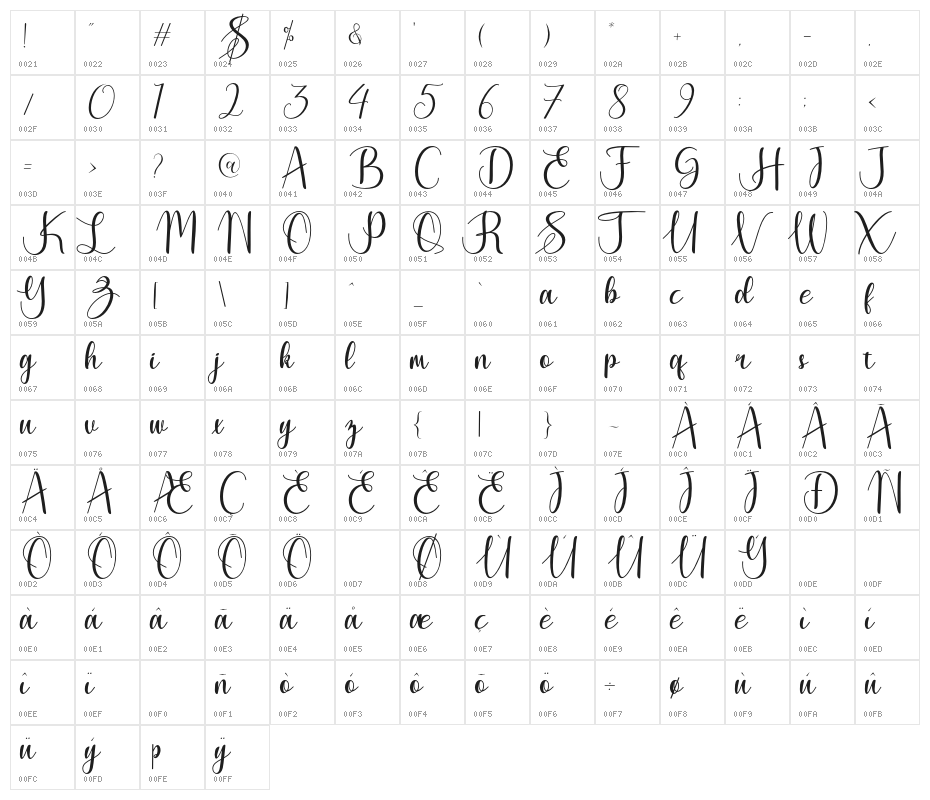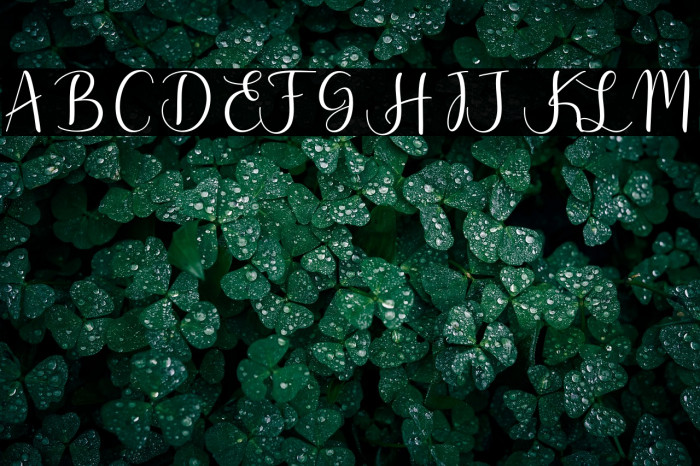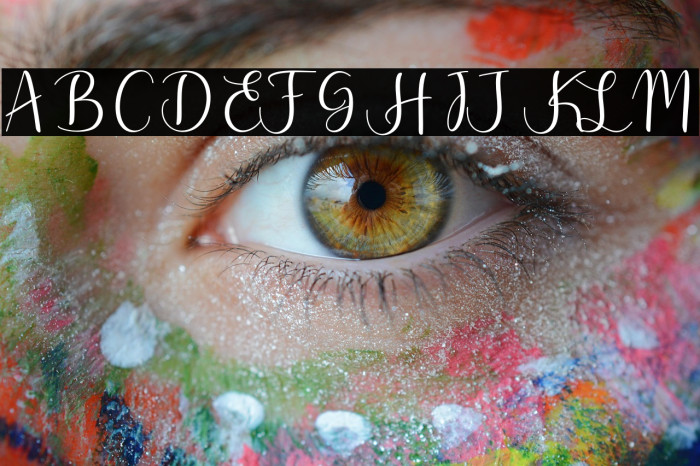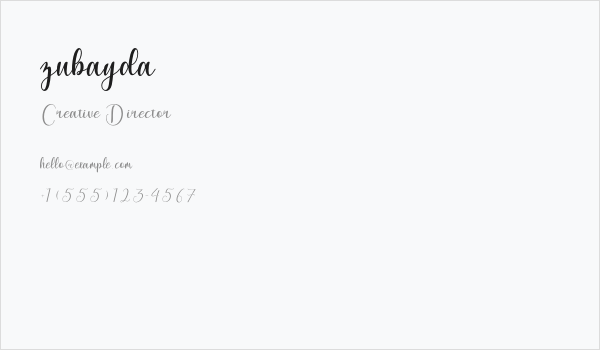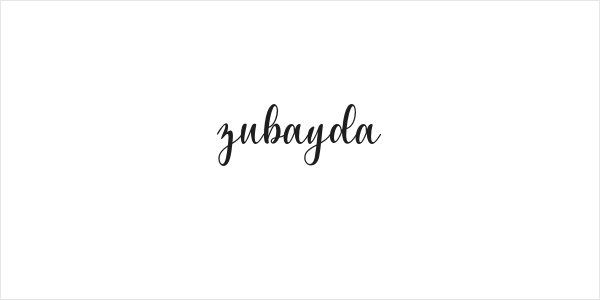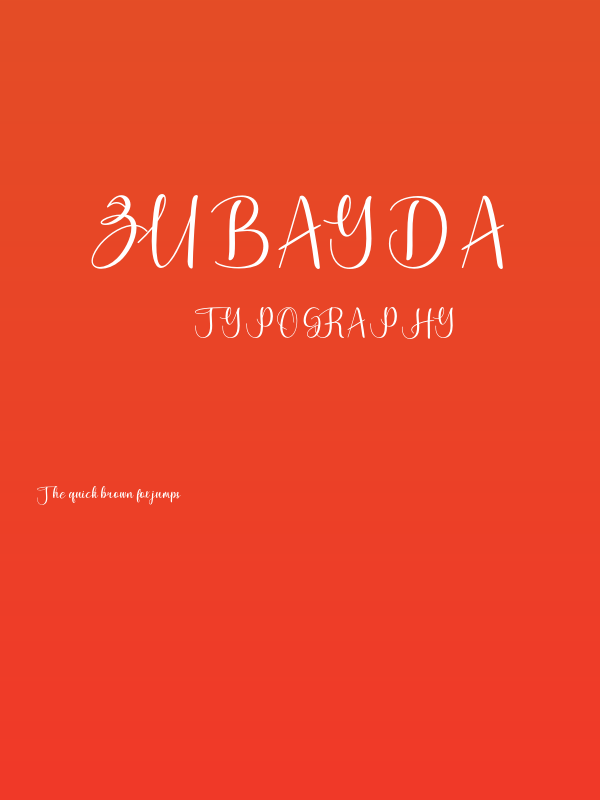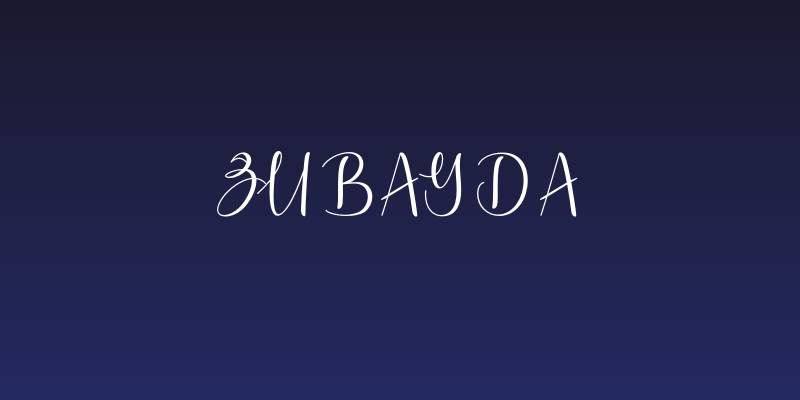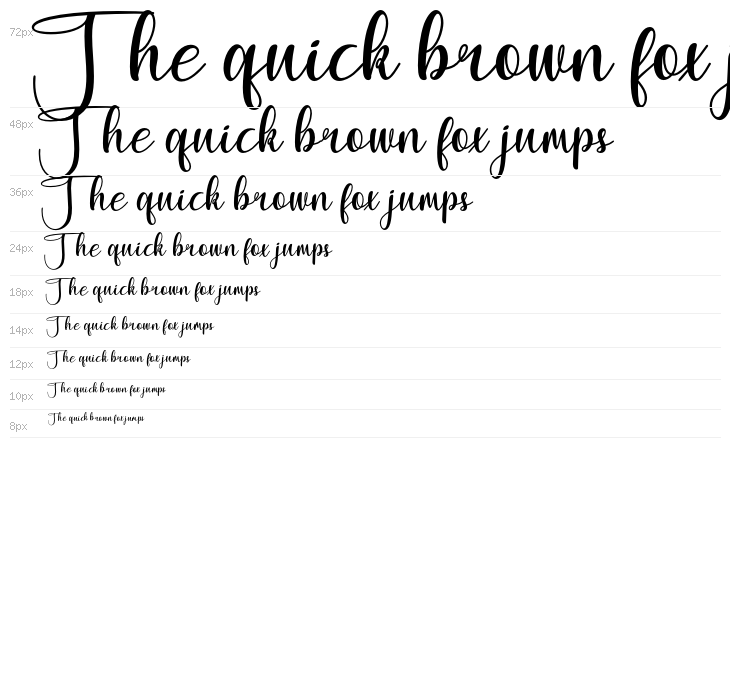
zubayda Font
zubayda Description
This elegant script font features a flowing, cursive style with a modern twist. The uppercase letters are characterized by their graceful loops and swashes, giving them a sophisticated and artistic appearance. The lowercase letters maintain a consistent fluidity, with smooth connections between each character, enhancing readability while preserving the decorative nature of the font. The numerals are designed with a similar flair, incorporating subtle curves that align with the overall aesthetic. Special characters, including punctuation marks, are crafted to complement the script style, adding a cohesive look to any text. This font is ideal for projects that require a touch of elegance and creativity.